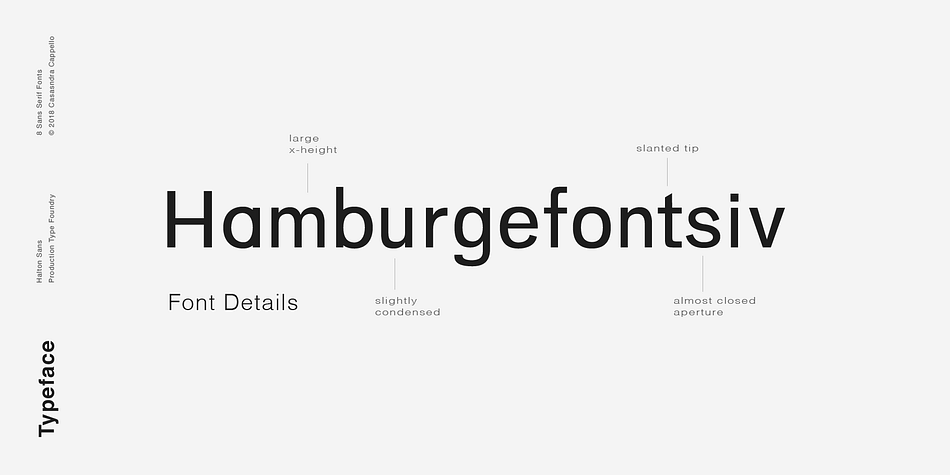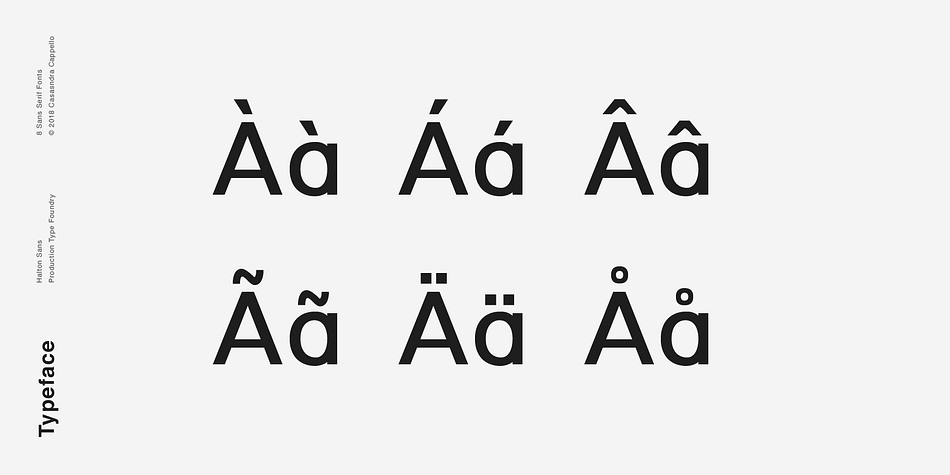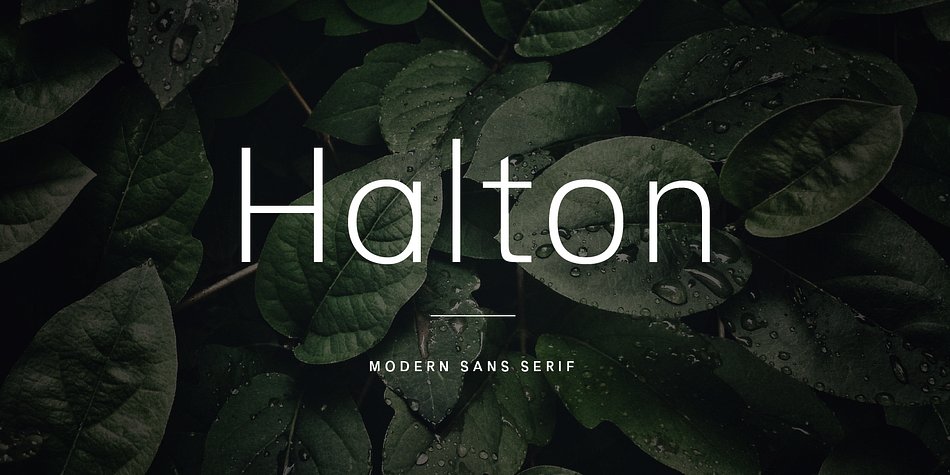
Designed by Cassandra Cappello, Halton is a sans serif font family. This typeface has eight styles and was published by Cappello Designs.
Halton is a minimal and ever so slightly condensed sans serif typeface. It has a little bit of personality via its squarish appearance and can be used for both headers and body copy. Halton is a Grotesque typeface; it has some slight elements of a serif such as having some slight thicks and thins. It has a large x-height and somewhat closed aperture for increased legibility.
This font family includes all Latin characters (including accents), numbers, special characters, and punctuation.